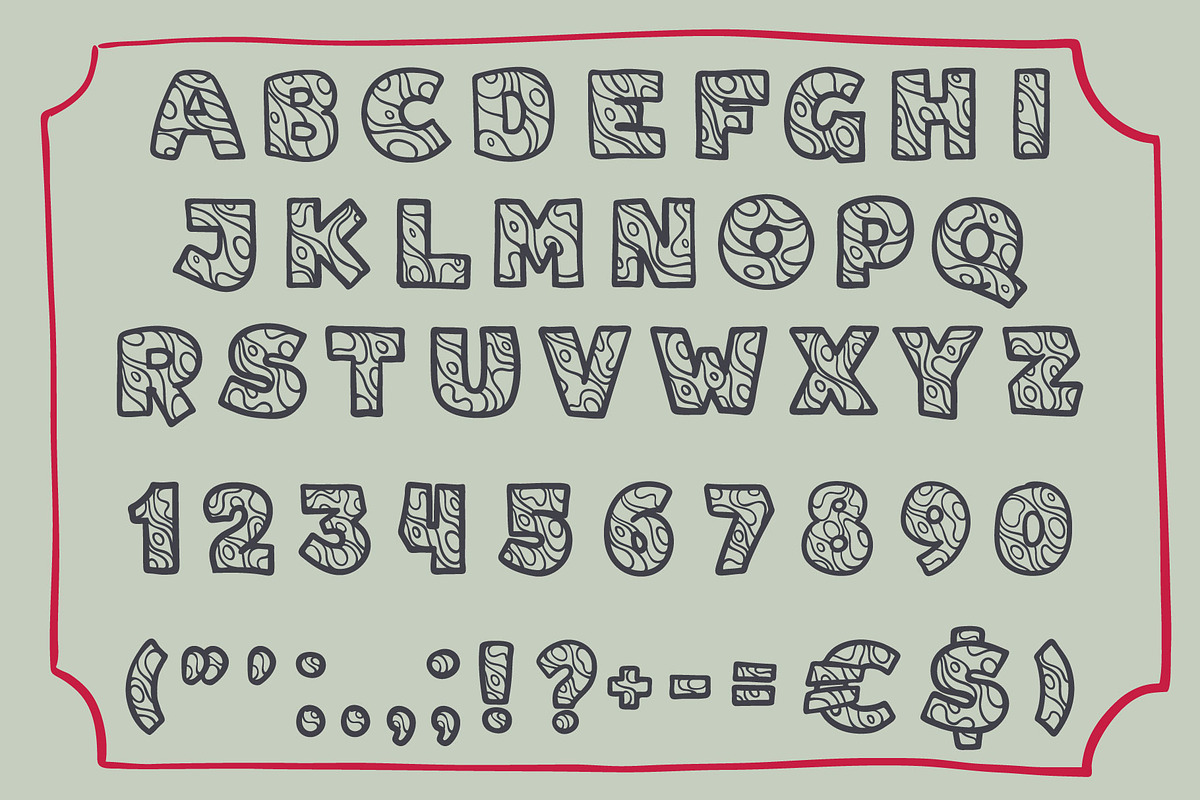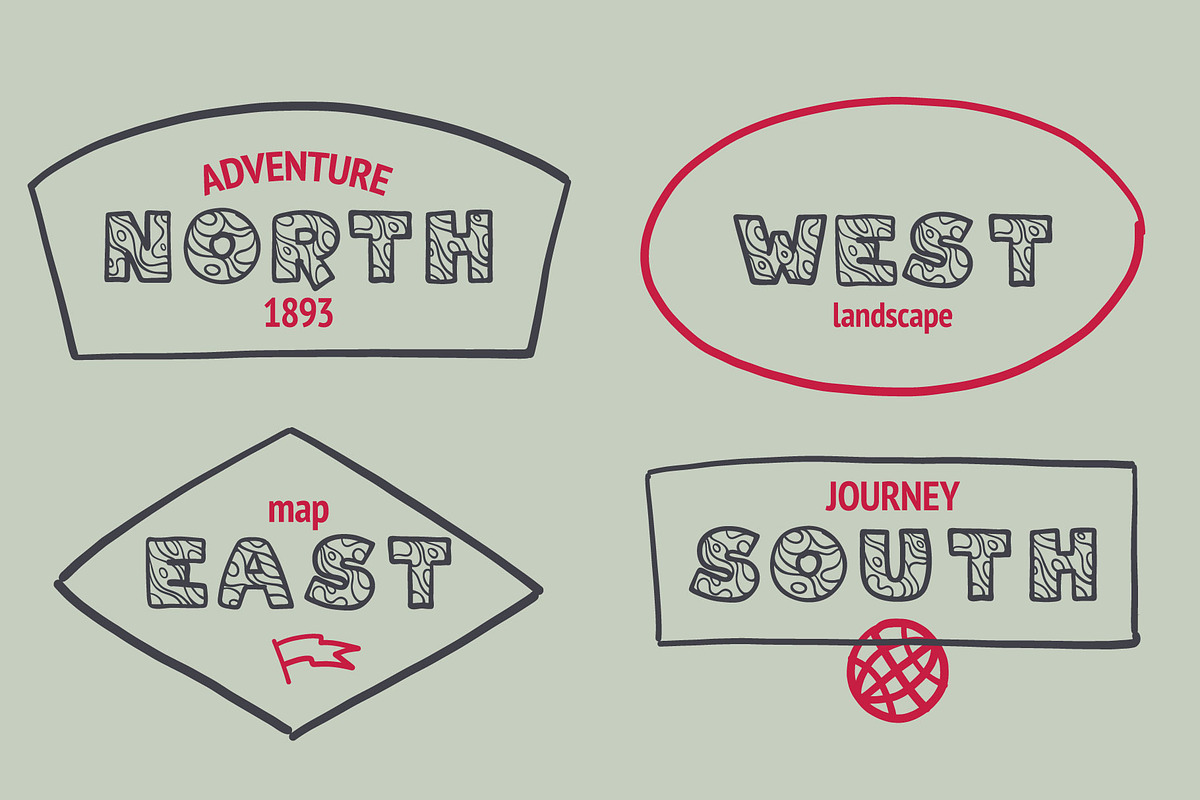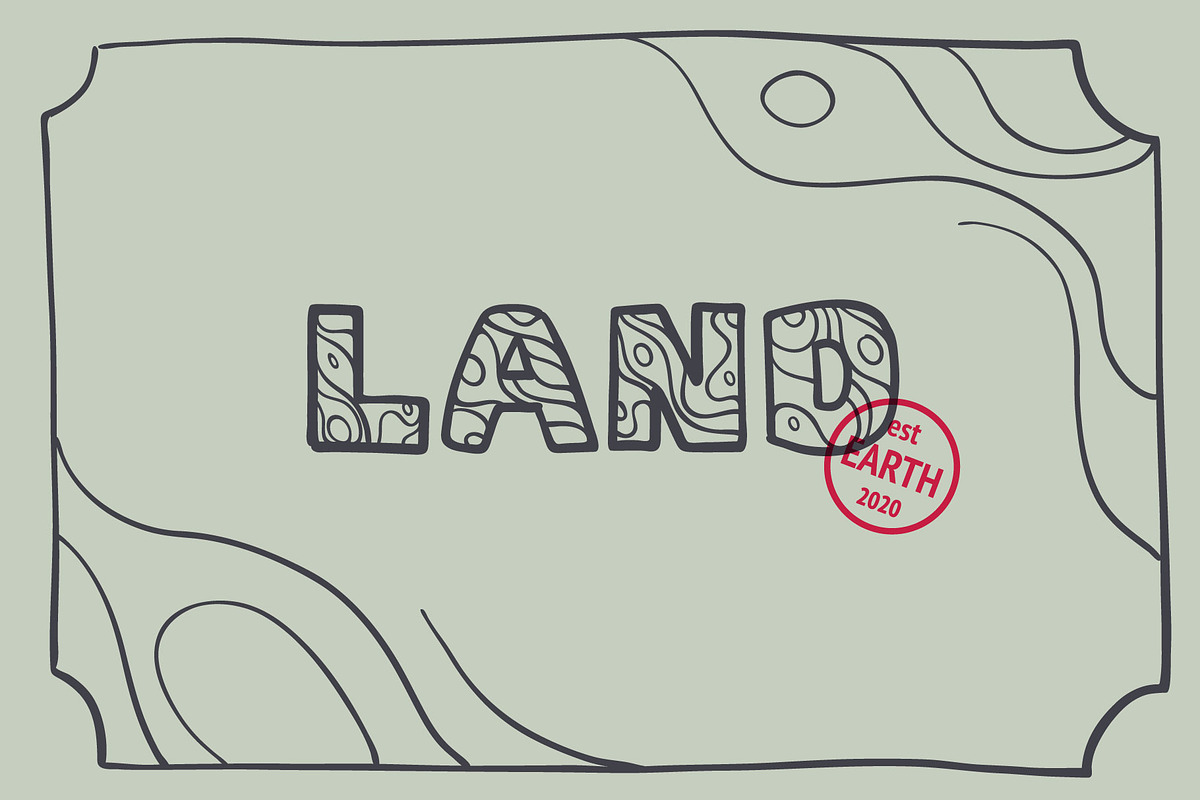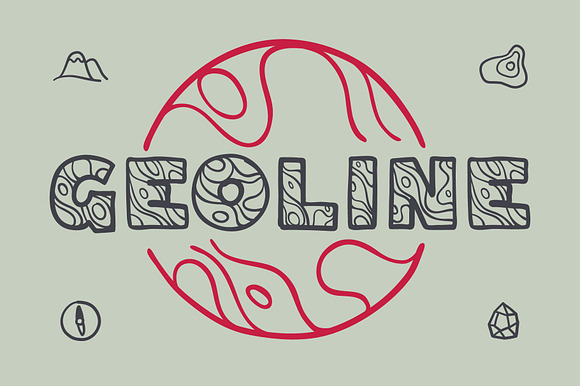
Geoline font
Uppercase letters from A to Z (26 characters) + numbers. Plus all symbols in Illustrator cc.
- Uppercase letters from A to Z (26 characters) + numbers.
Geoline font by kaershop fits naturally into Branding, posters, packaging, typography.